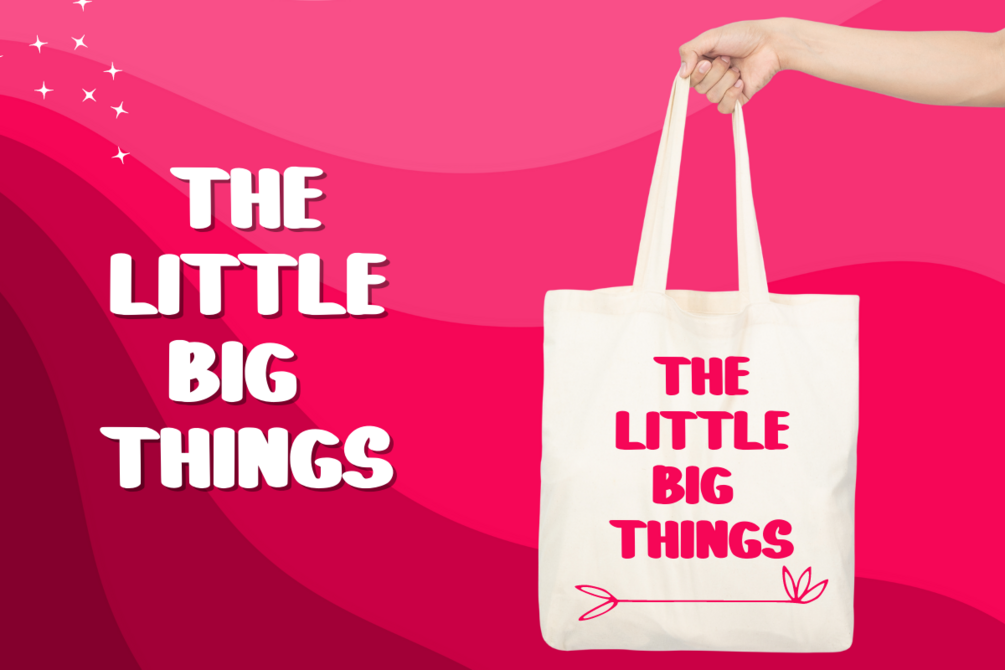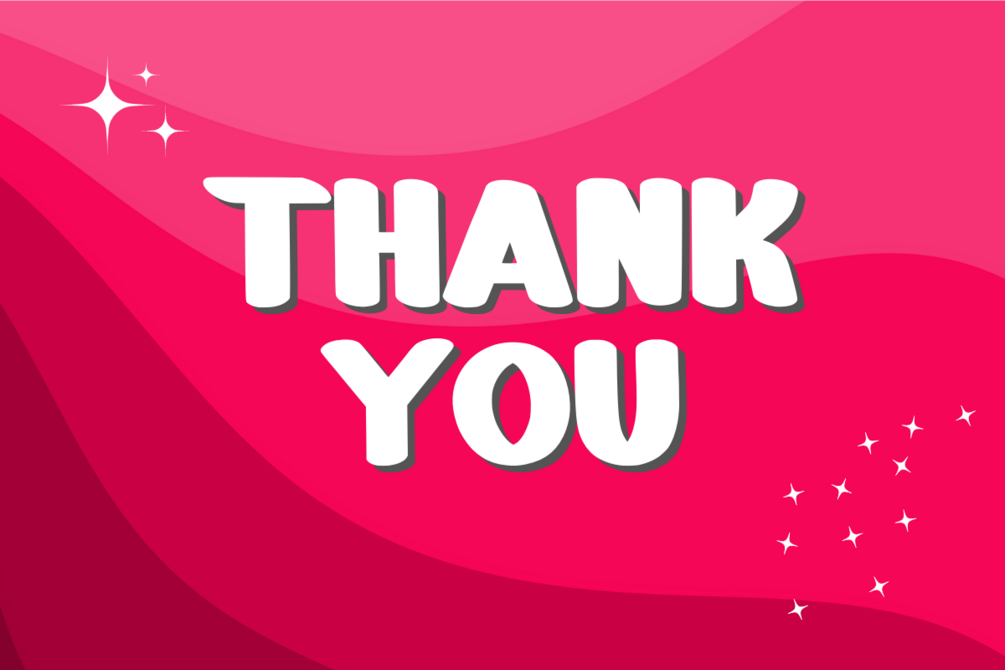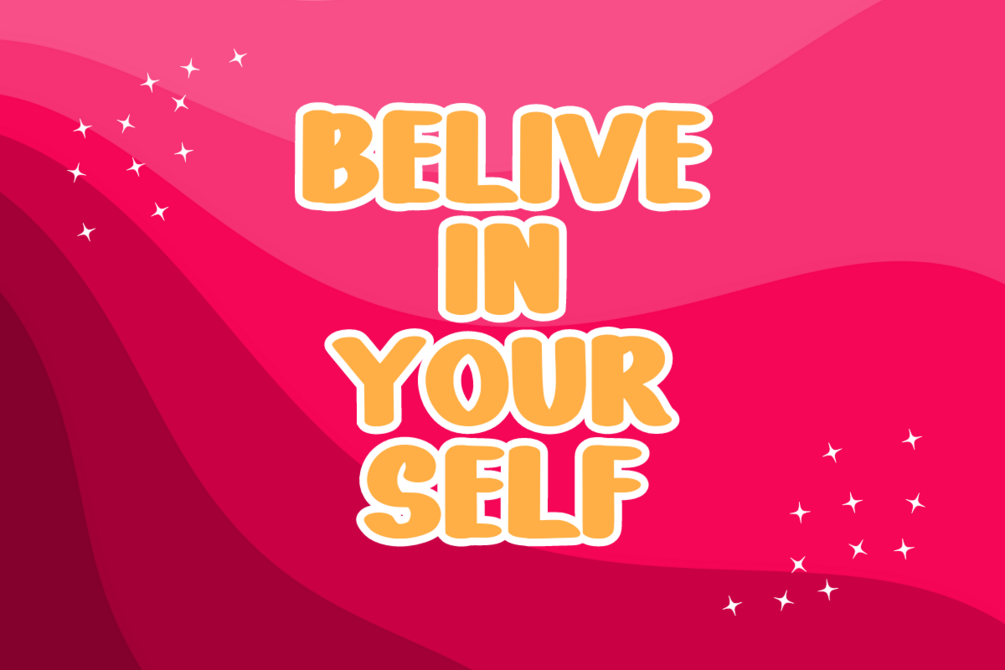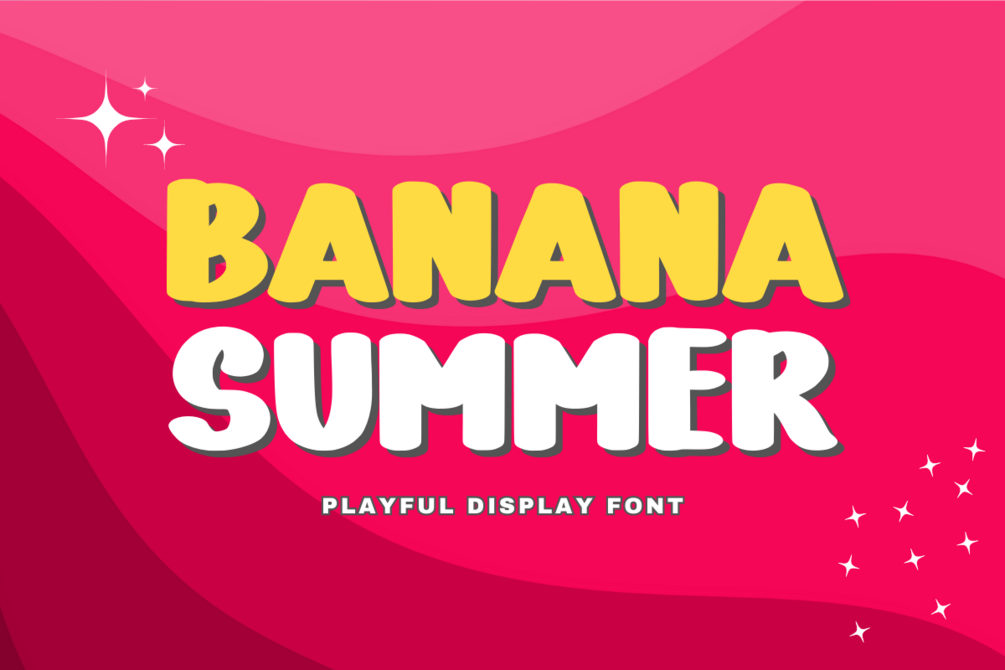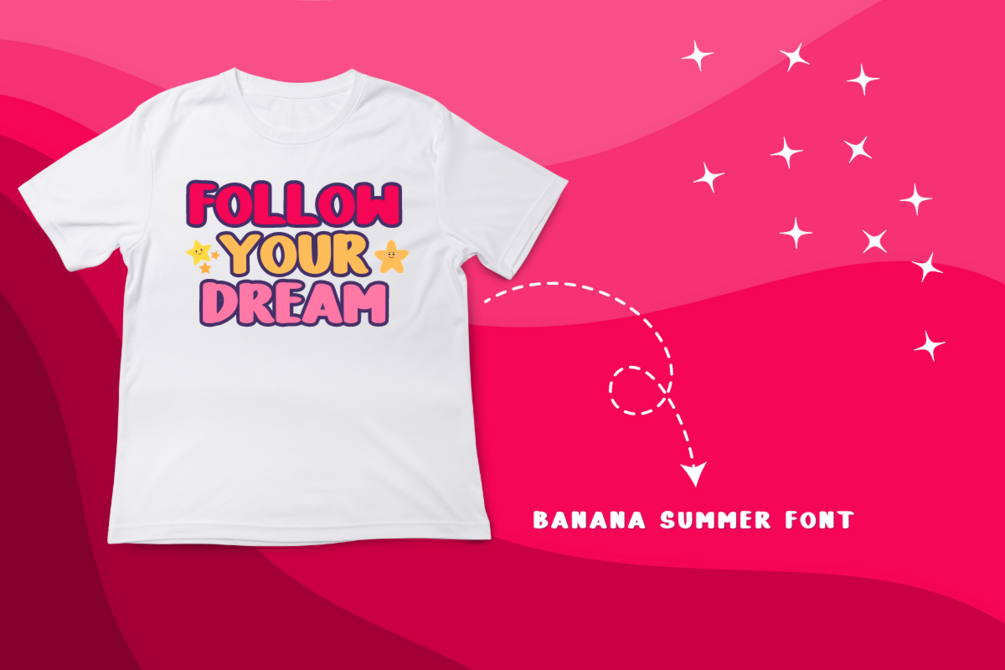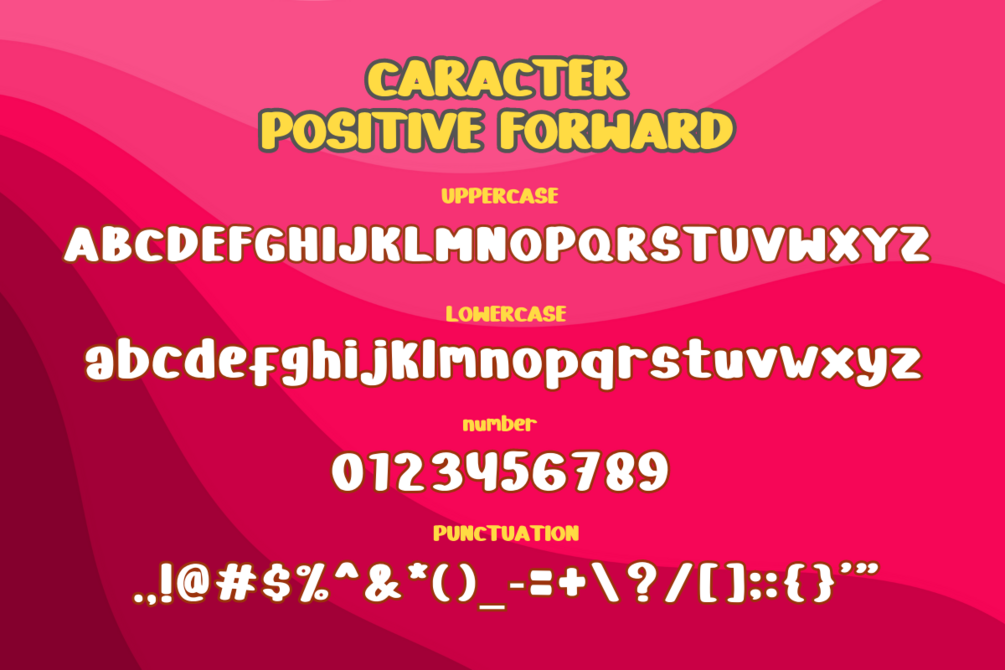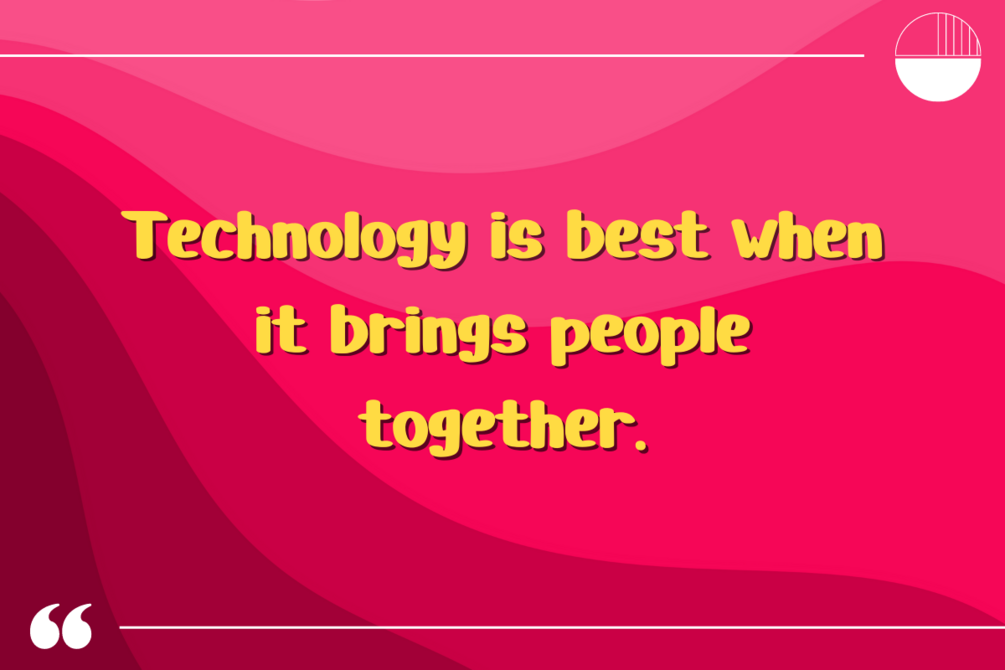
Banana Summer - Playful Display Font
Banana Summer is a fun and upbeat display font that brings back the spirit of the retro era. Its cute curves and bold shape exude a sense of nostalgia and joy. Perfect for disco-inspired designs, party invitations, and retro-themed projects, Banana Summer adds a stylish touch of fun and playfulness to any creative endeavor. Get inspired by her unique and beautiful style and add it to your favorite designs!